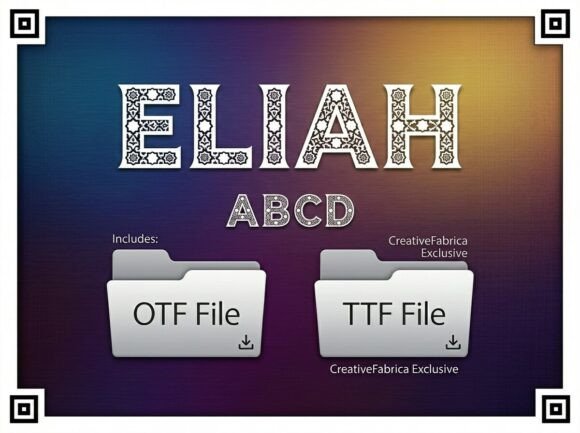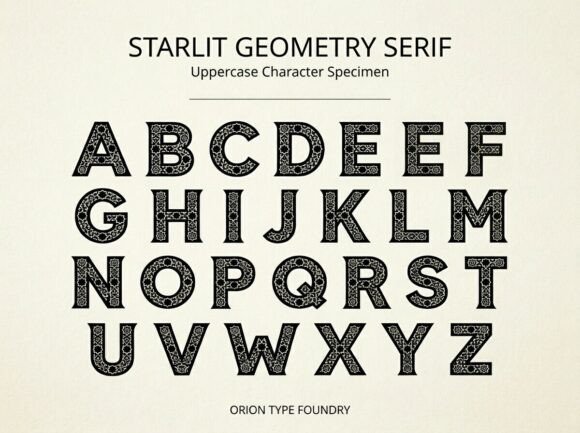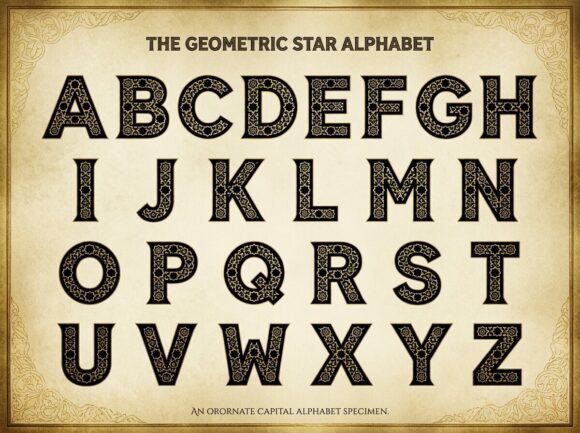
The Eliah Font: A Stunning Decorative Display Font for Creative Minds
Have you ever been in the middle of a design project, pouring your heart and soul into it, only to get stuck on one thing: the font? I remember a particularly frustrating experience when I was working on a logo design for a client who wanted something bold, artistic, and professional. After hours of searching, I stumbled upon the Eliah Font, and it was love at first sight! ✨ In this article, I’ll share my experience with this beautiful font, its features, and how to make the most of it in your designs.
First Impressions: What Makes Eliah Font Special
The Eliah Font is a decorative display font designed to be the center of attention. With its unique artistic elements and strong visual personality, it’s perfect for creators who want to break away from the ordinary. This font is versatile enough for bold headlines, artistic logos, and creative packaging, while maintaining a professional and polished finish.
It’s worth noting that the Eliah Font is an ALL-CAPS (Uppercase Only) display typeface, specifically designed for high-impact headlines, logos, and decorative initials where every letter is a work of art. ⚠️
Honest Review: The Good and the Quirks
Here’s what I love about the Eliah Font:
- ✨ Unique and artistic design that’s sure to grab attention.
- ✅ Professional and polished finish.
- ✅ Versatile and can be used for various design projects.
And here are some quirks to consider:
- ⚠️ The font is ALL-CAPS, which may limit its use for body text or other applications where lowercase letters are necessary.
- 🤔 Some users may find the font a bit too ornate or over-the-top for certain projects.
The Story Behind Eliah Font
The Eliah Font was designed with the intention of creating a unique, artistic font that would stand out in any design project. The designer aimed to craft a font that would be both visually striking and professional, perfect for creative types who want to make a statement. While the exact story behind the font’s creation may be unknown, it’s clear that the designer put a lot of thought and care into crafting a truly special font.
| Is the Eliah Font suitable for body text? | No, the Eliah Font is designed for display purposes only and is not suitable for body text due to its ALL-CAPS design and ornate style. |